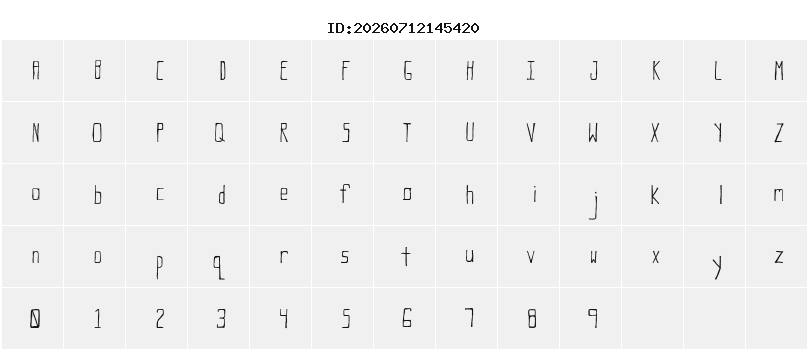
Rat Scratch Tall Preview
• Font Name: Rat Scratch Tall
• Full Font Name: Rat Scratch Tall
• PostScript Name: Rat Scratch Tall
• Designer: Dan Winter
• Manufacturer: Dan Winter
About Rat Scratch Tall.ttf
Rat Scratch Tall.ttf is a modern, elegant sans-serif font designed for ultimate readability and visual harmony. Perfect for branding, headlines, web design, and print materials.